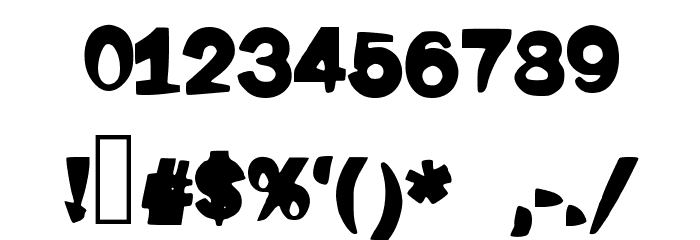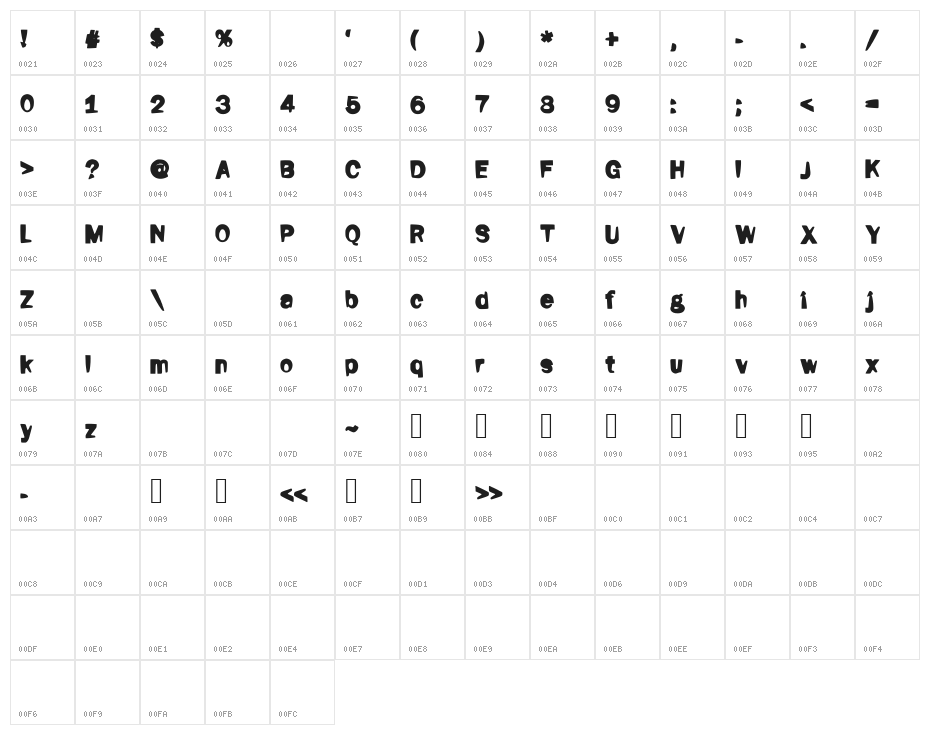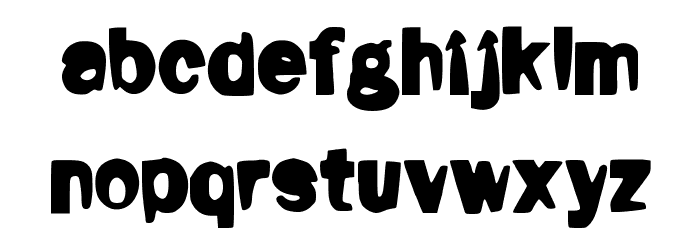
Fati Font
Fati Description
This font features a playful and bold style with exaggerated curves and a slightly uneven baseline, giving it a whimsical and informal appearance. The characters are thick and rounded, providing a strong visual presence. The uppercase and lowercase letters maintain a consistent style, with some letters having unique, quirky elements that add to the font's charm. The numbers and special characters follow the same bold and playful design, ensuring a cohesive look across all glyphs. This font is ideal for projects that require a fun and eye-catching typeface.
| Proposed Projects | Ideal for children's books, playful branding, party invitations, and casual posters. |